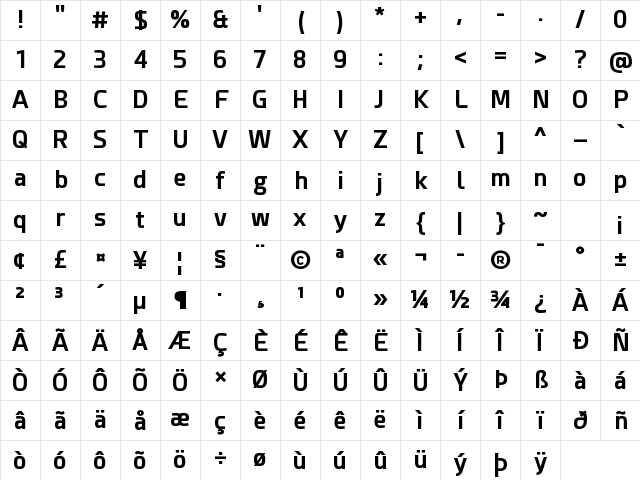
Esphimere Bold Free Font
Esphimere Bold
Designer: Dichi
Design Context for Esphimere
Esphimere is a composed and adaptable typeface that performs quietly and consistently across a wide range of design contexts. Its bold stroke weight gives it real presence on the page.